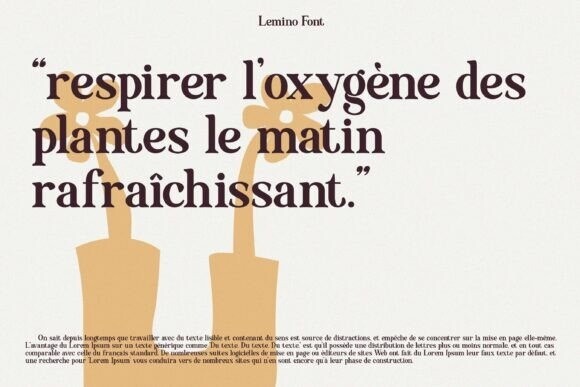
Lemino Font
Designer: bagusnyde
Lemino Font – the Classic Retro Font. Immerse yourself in the timeless appeal of this vintage-inspired typeface, unquestionably the perfect match for your simplistic, classical-themed endeavors. Transport your design experience back to simpler times, uniting old world charm with contemporary sophistication. Experience the captivating allure of Lemino, a tribute to the grandeur of retro design aesthetics.